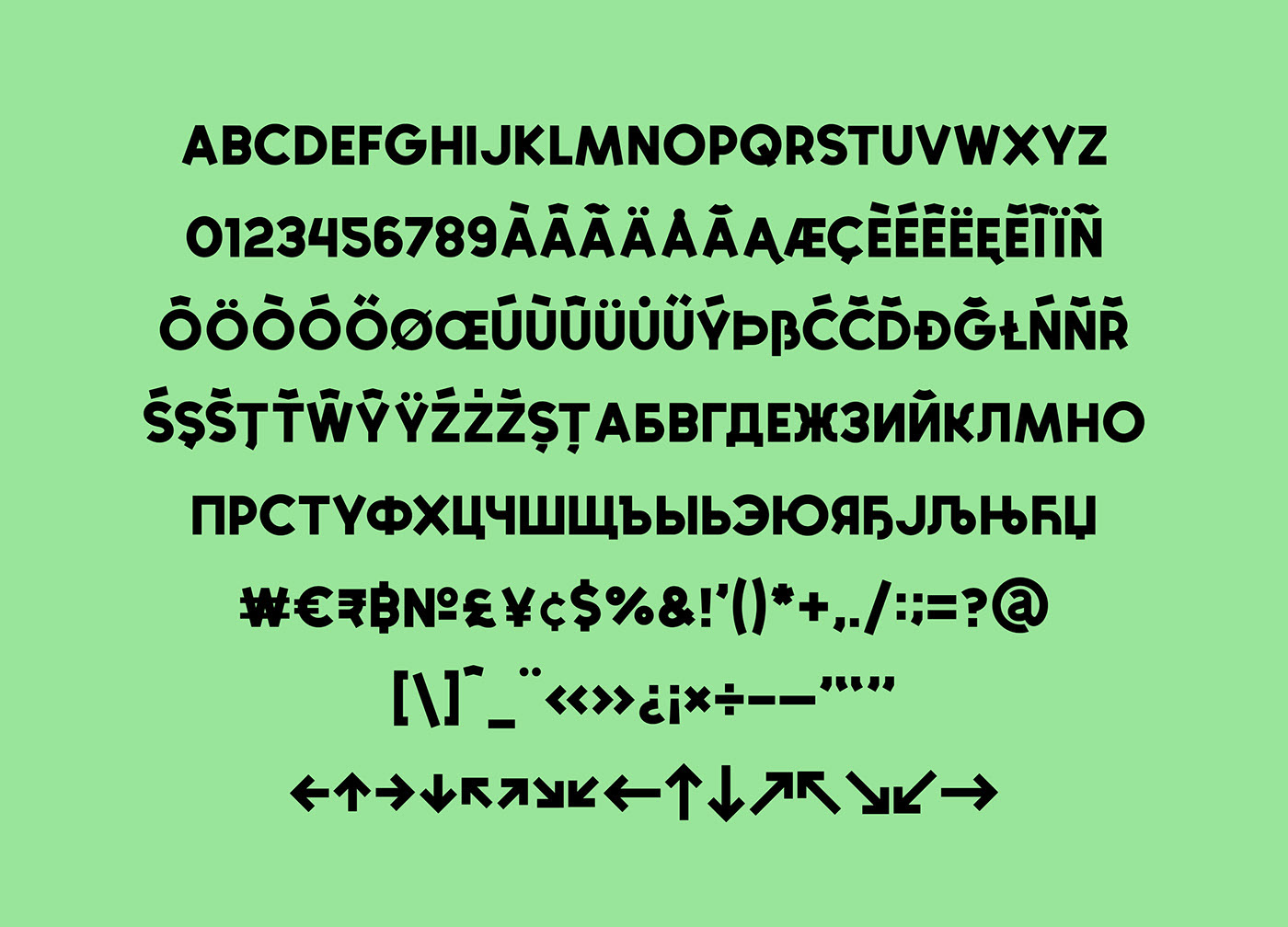
Patsy from Vedran Voskovic is a typeface you'll find yourself using over and over again. Patsy is a person unaware of its inadequacies. When you need a bag man, you get a patsy. When you need a fall guy, you get a patsy. When you need a scapegoat, you get a patsy. When you need a patsy, you get a patsy. Patsy takes one for the team. If you are the last in on the joke, then you are the patsy. This is a typeface unaware of its imperfections. It is unrefined and unsophisticated, yet bold and brazen. It has no sense of space and time, it is loud and boring at the same time.